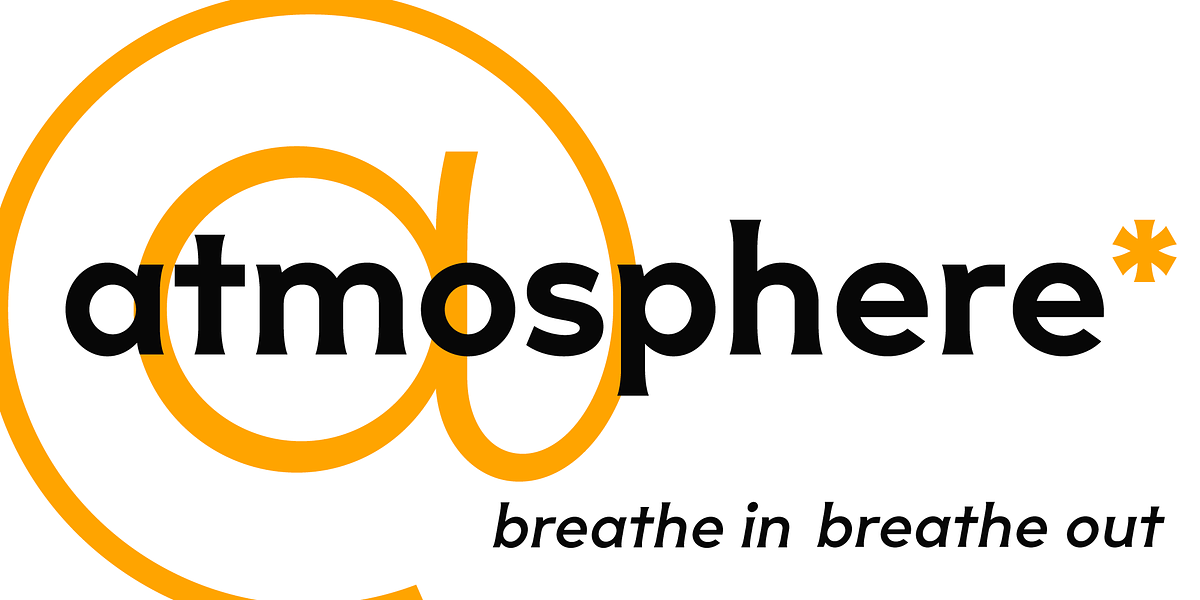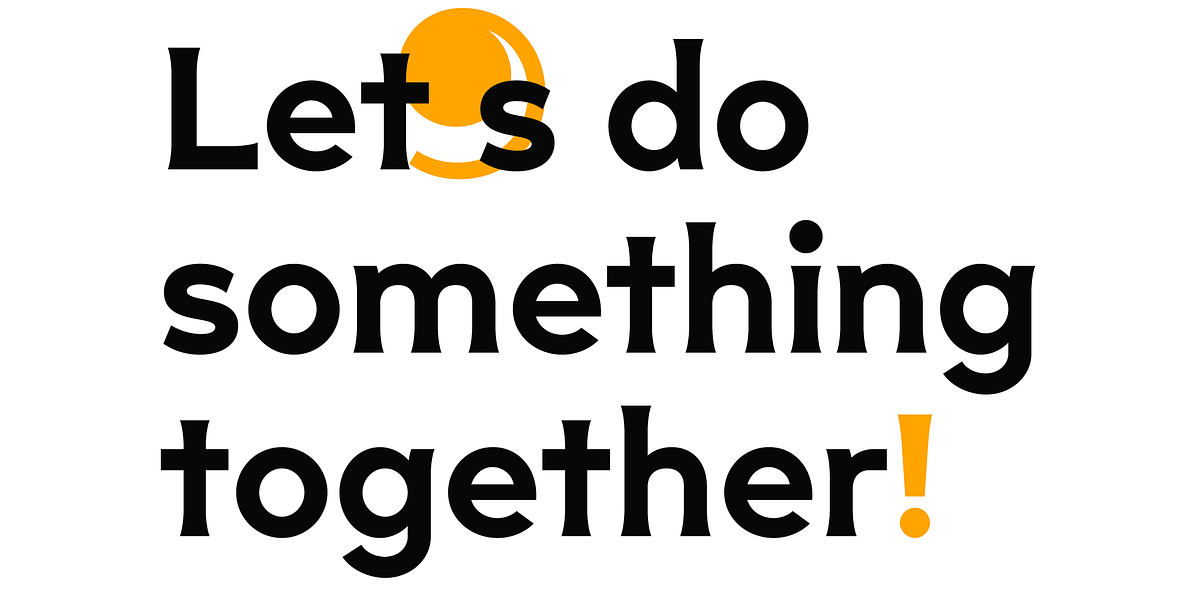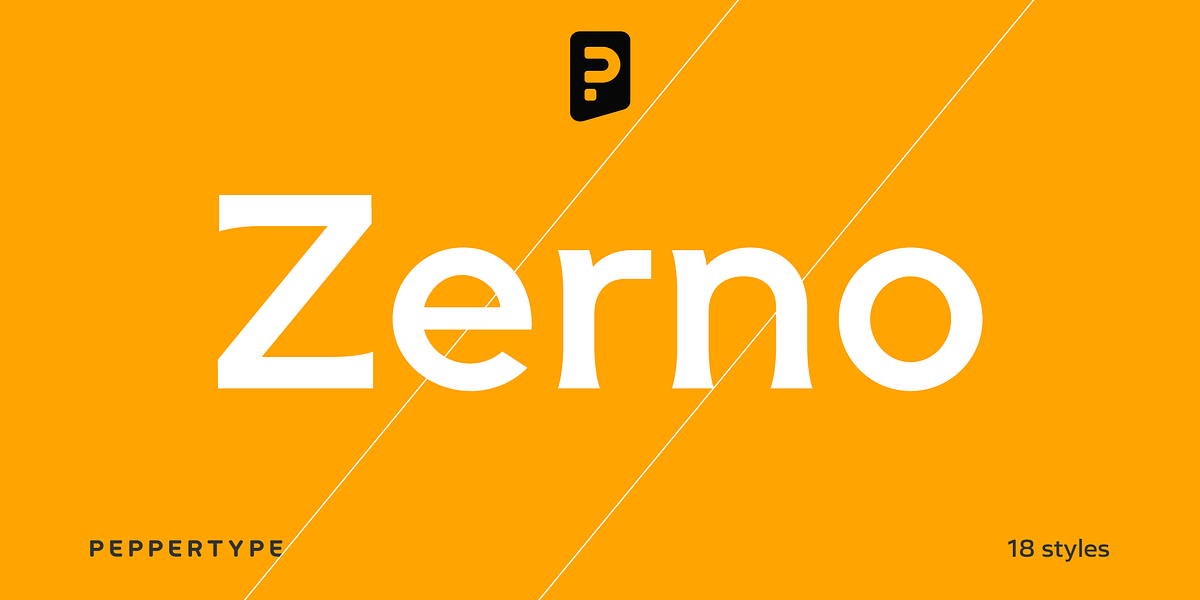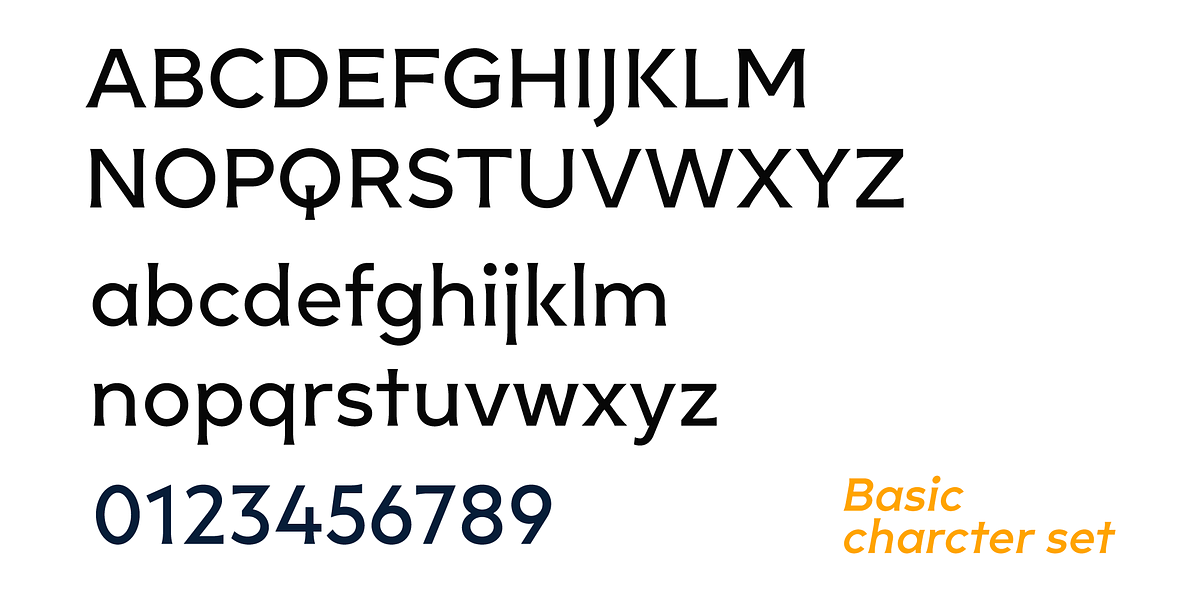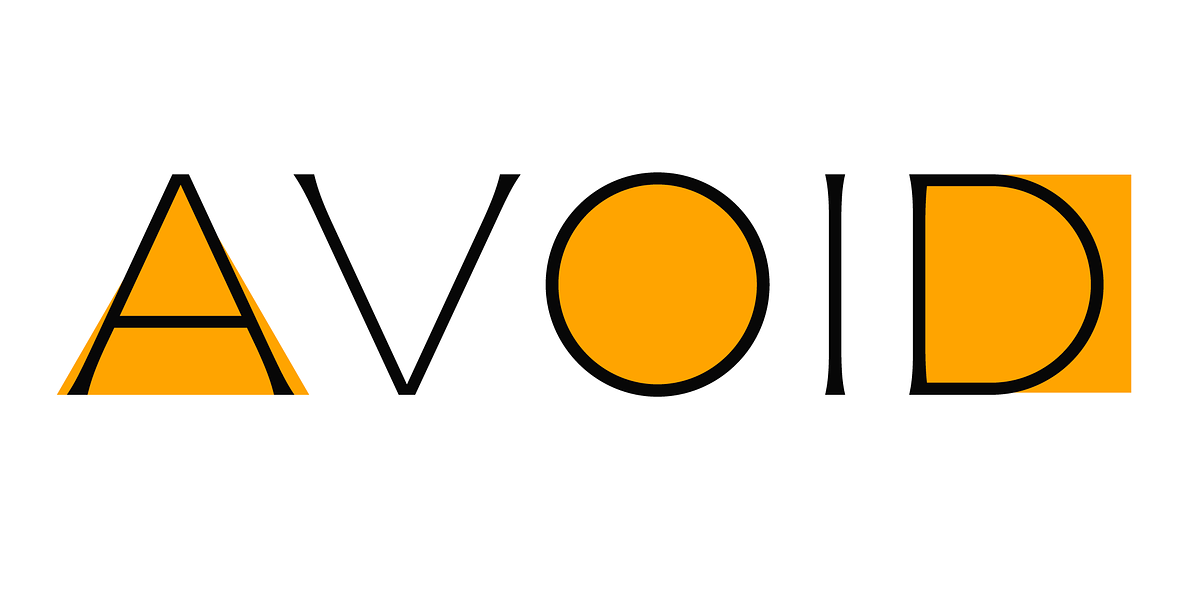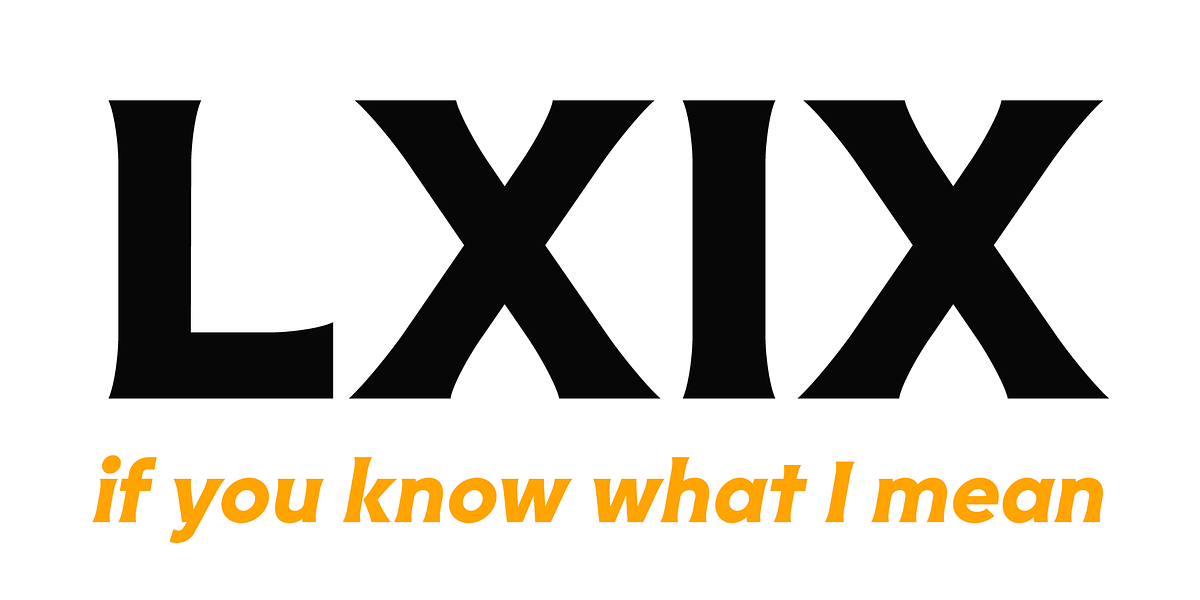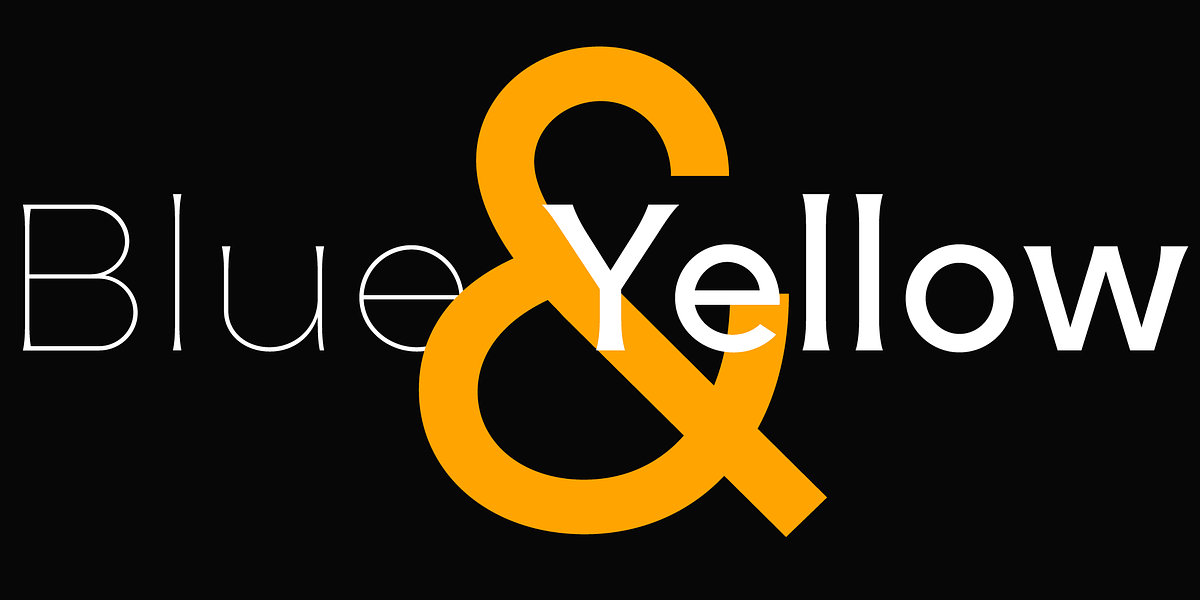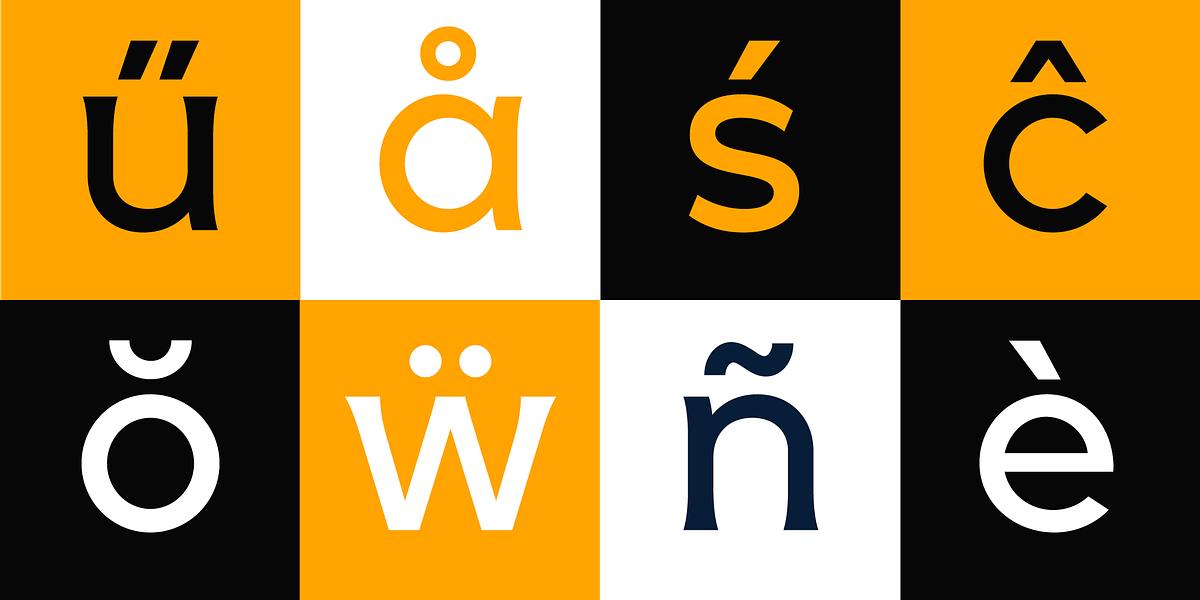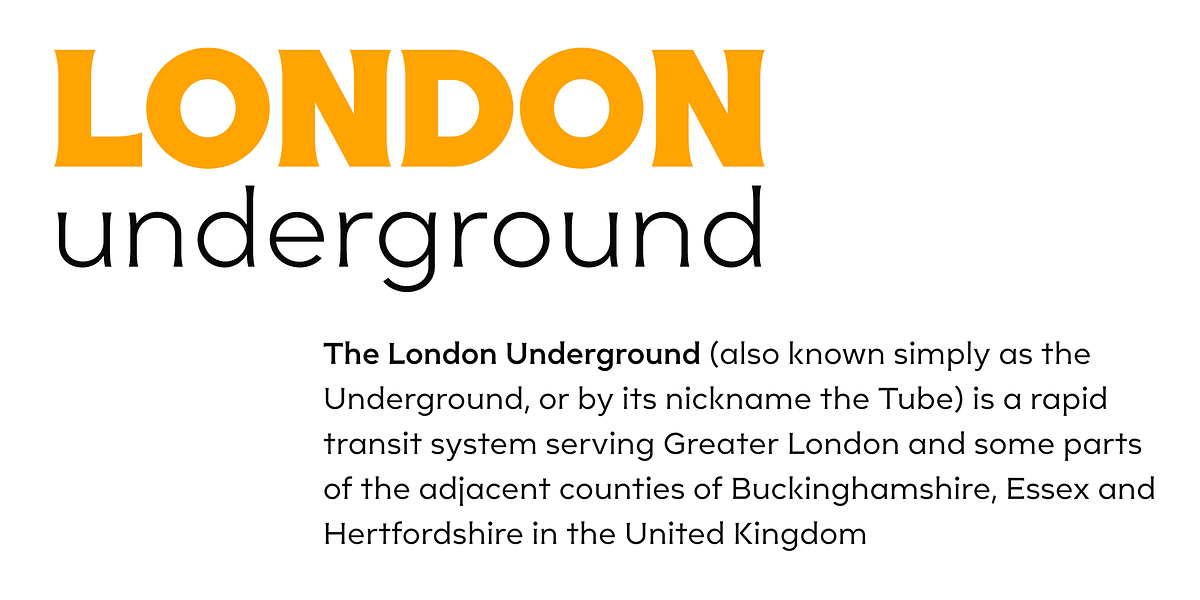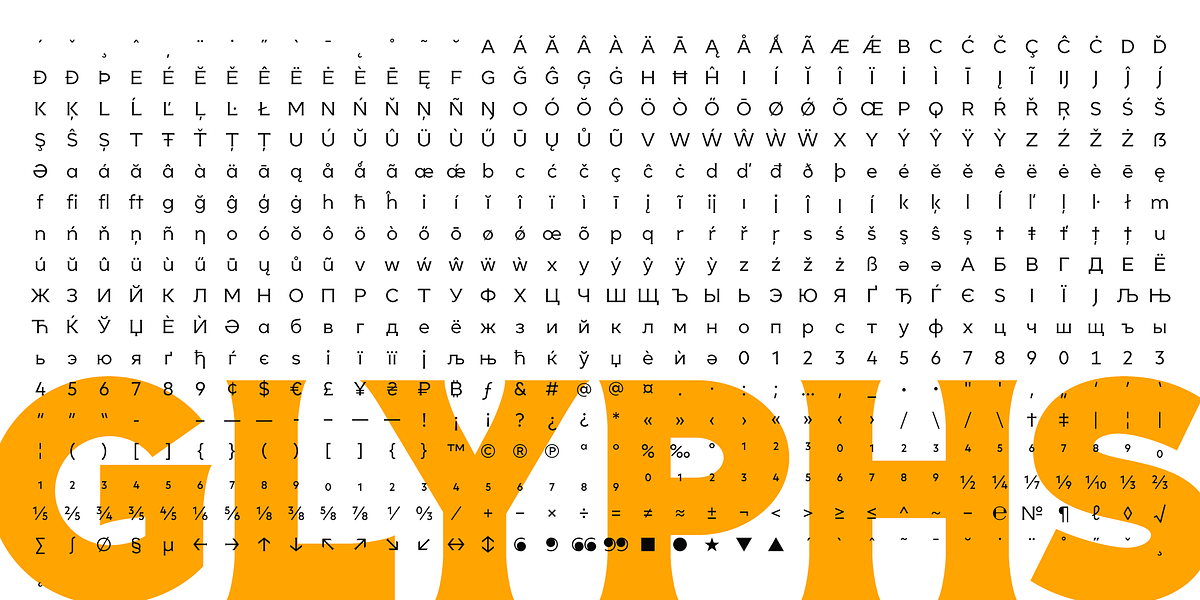
Zerno
Zerno is a serif typeface characterized by its geometric forms and distinctive flared serifs. This combination gives it a classic yet modern feel. The availability of weights from Thin to Black makes Zerno suitable for a variety of applications, including posters, body copy where it wants to stand out, and traditional display uses.